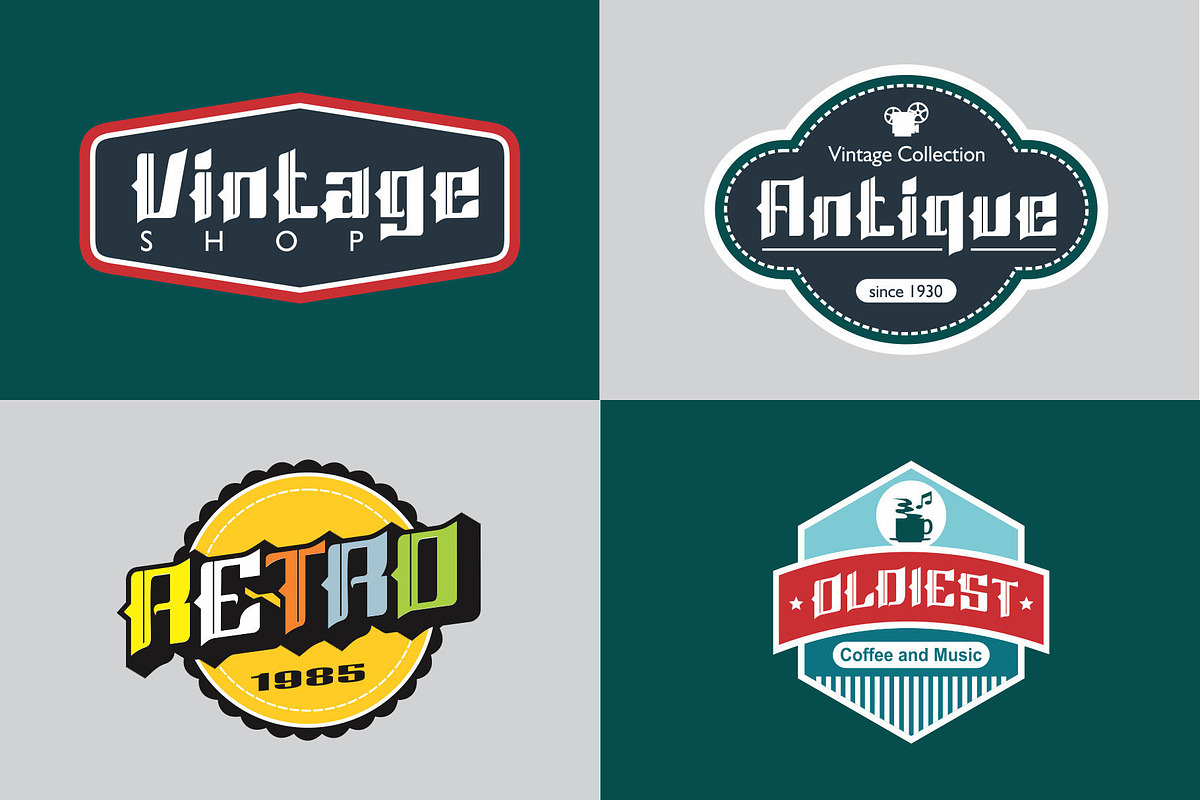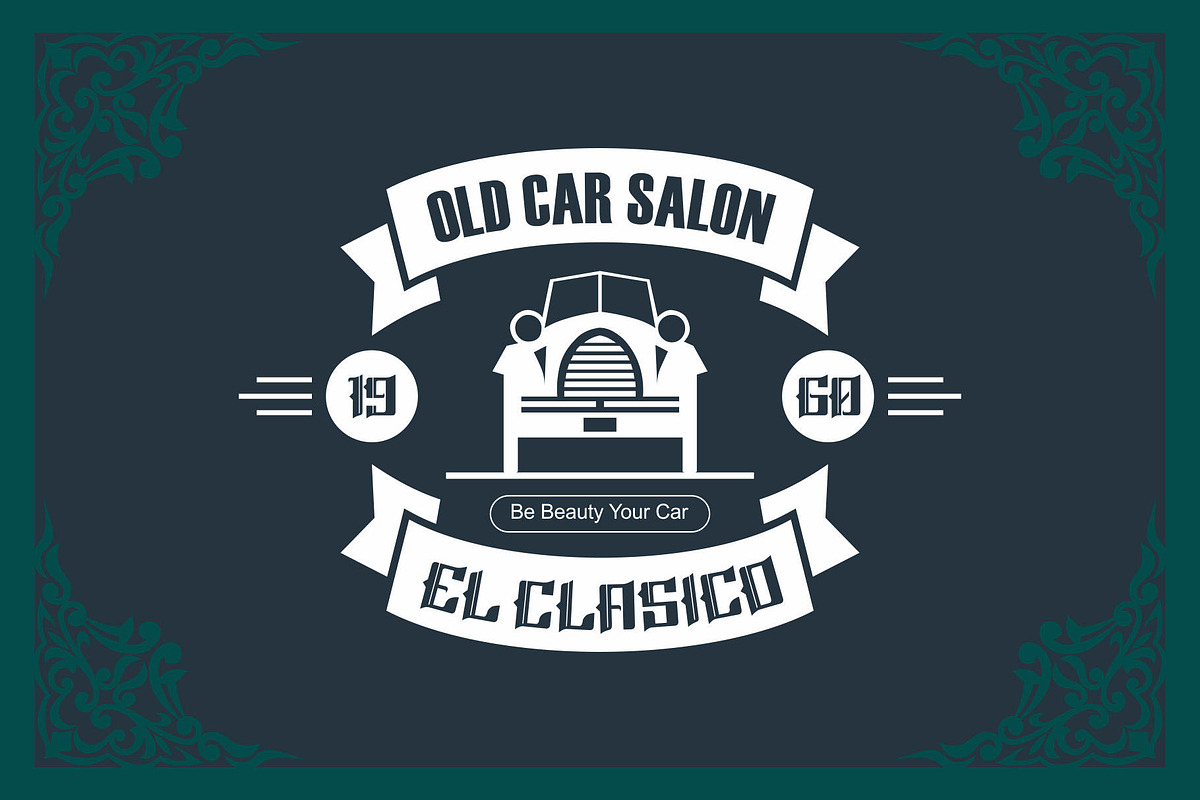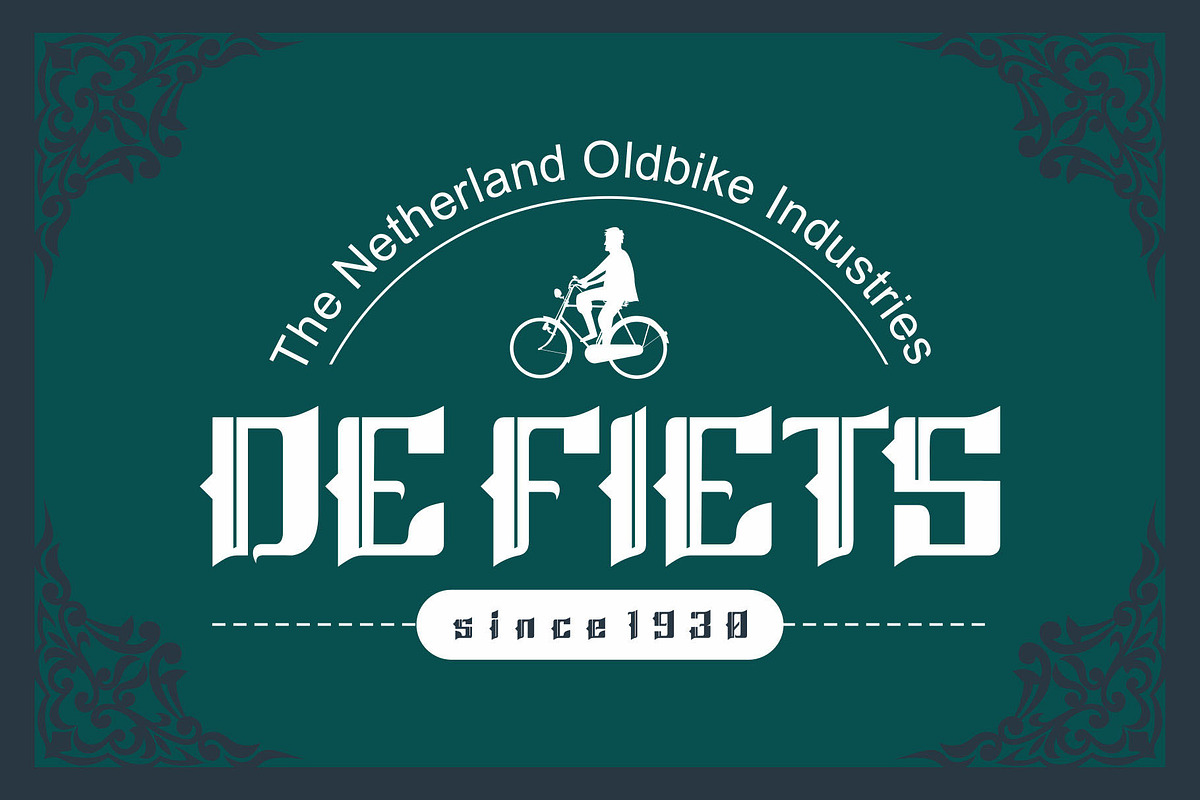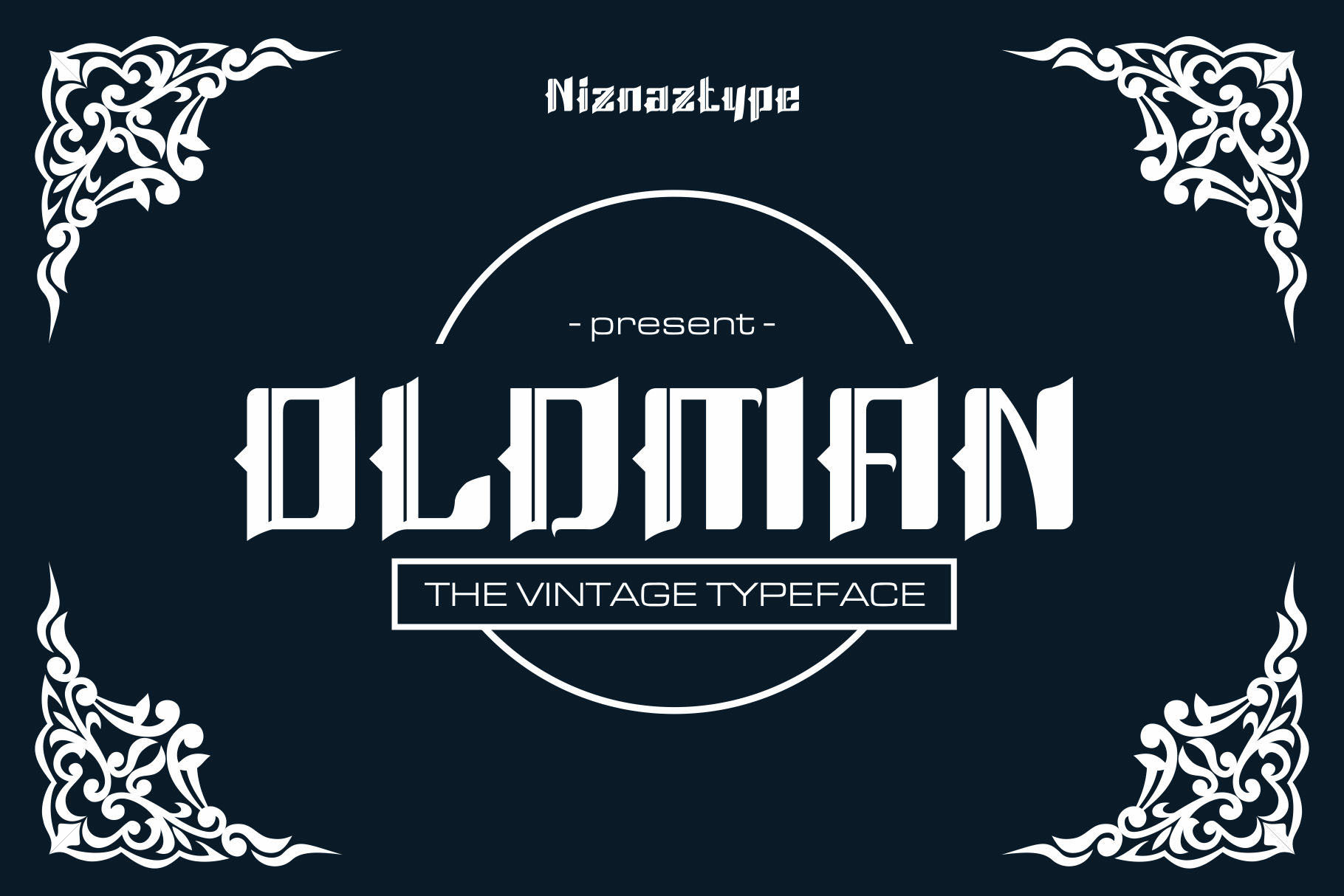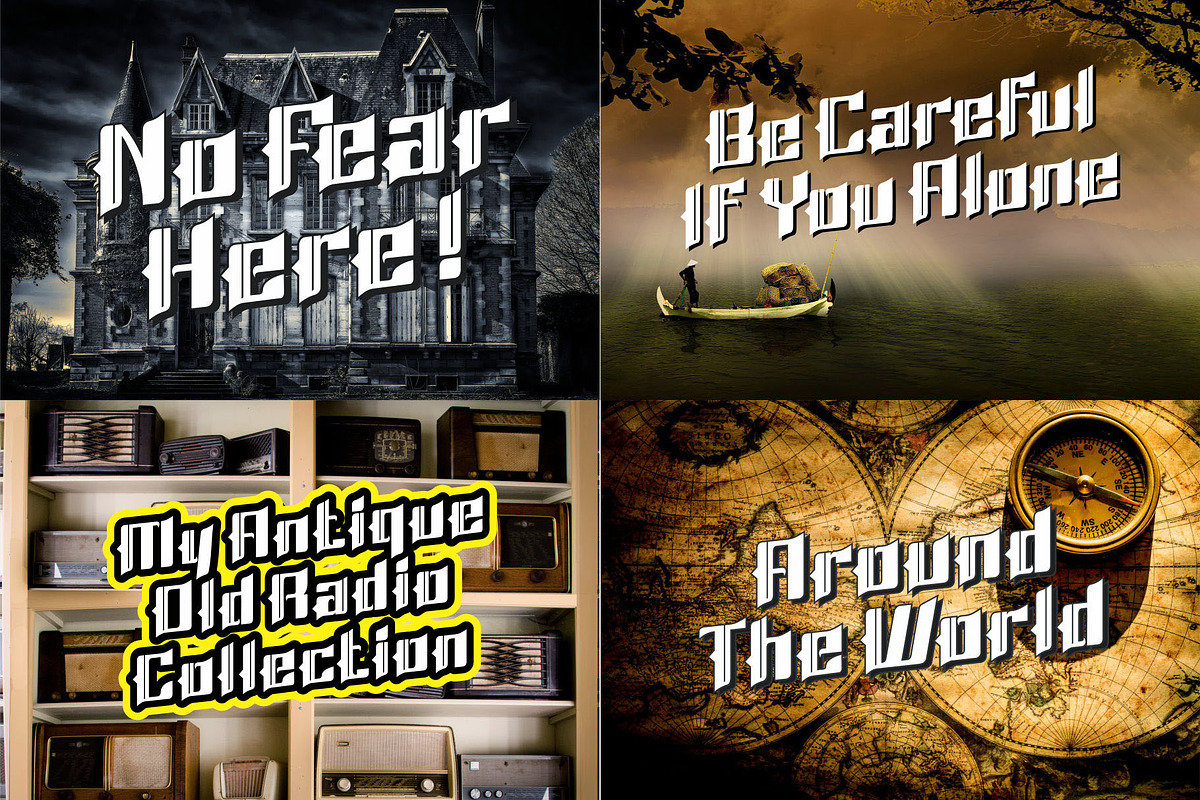
Oldman - A Vintage Font
Oldman is a new typeface with vintage style. This font created to reach a high quality in vintage design. Oldman font contain a uppercase, lowercase, numeral and simple punctuation. The design themes like gothic, vintage, oldiest, retro, creepy, music and others are very good used this Oldman font. Tshirt, headline, poster, logo, product titles will be a best things if you use this Oldman font. Oldman font created in 3 formats, TTF, OTF and WOFF If you any question, please send email in emnazar2009@gmail.com